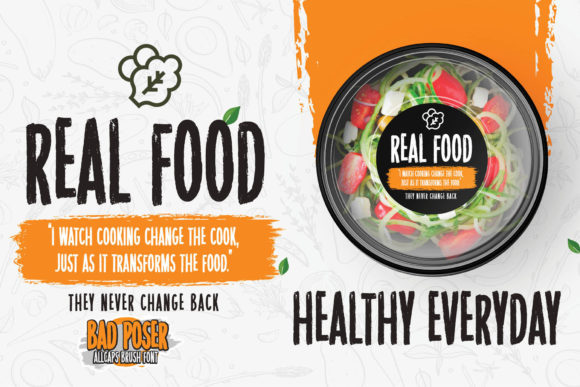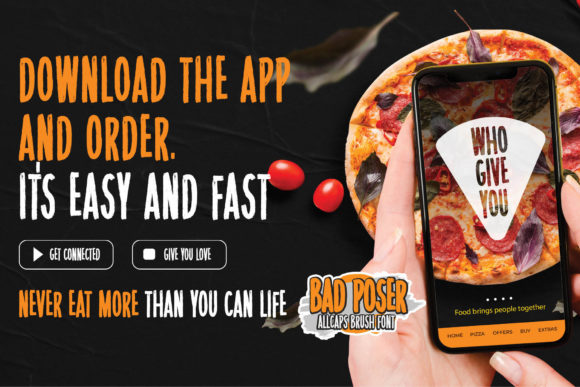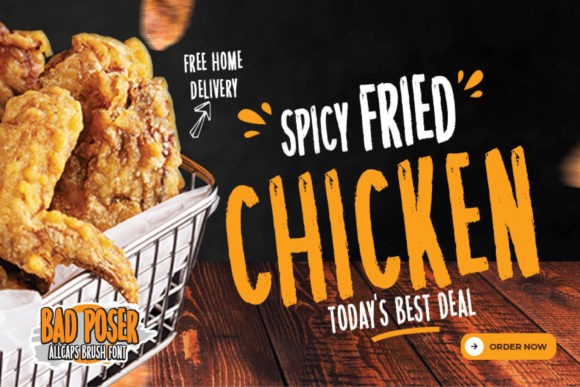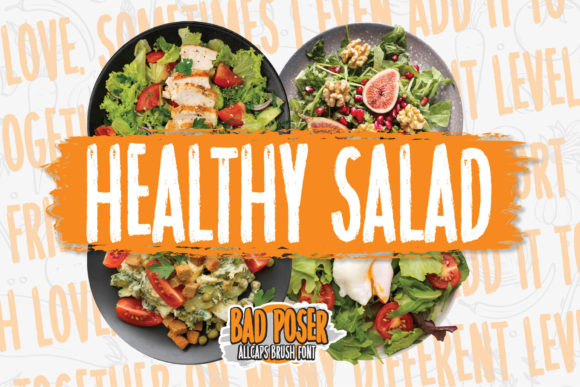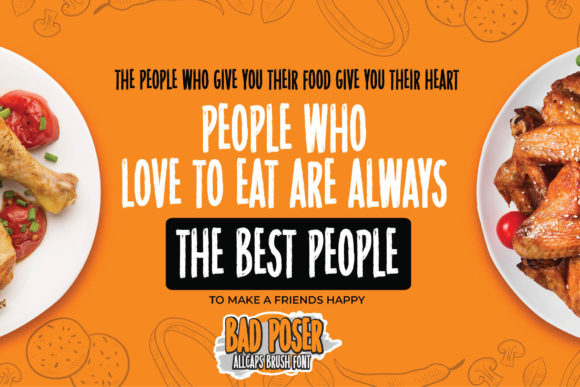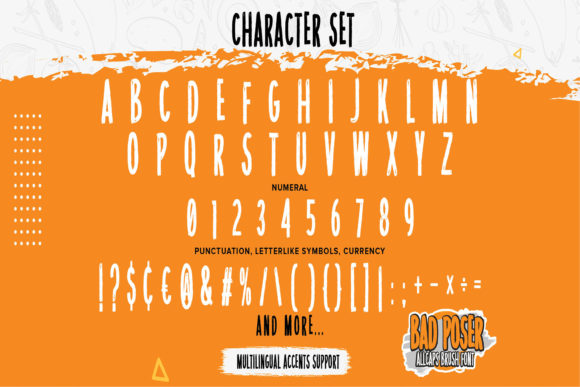
Unleash Your Inner Designer: Get Ready to Rock with the Bad Poser Font
Have you ever stared at a blank canvas, searching for the perfect font to bring your design to life? We’ve all been there. It’s that moment of creative uncertainty when you need a spark to set your imagination ablaze. For designers, finding the right font can be the difference between a mediocre design and a showstopper.
That’s where the Bad Poser Font comes in – a cool and brushed display font that embodies an urban style. This versatile font is perfect for designs that need a touch of edginess, such as t-shirts, sportswear, logos, advertisements, clothing, and more. Whether you’re a seasoned pro or a budding designer, the Bad Poser Font is a valuable addition to your toolkit, offering endless possibilities to elevate your designs and leave a lasting impression.
Bad Poser Font Key Features
- Font Style: Script, handwritten, and informal font designed to mimic the look of handwriting.
- Unique Characteristics: The font’s informal and playful nature, combined with its high level of customization options, makes it ideal for creative projects that require a personal touch.
Bad Poser Font Review
I’ve worked with my fair share of fonts, but ‘Bad Poser Font’ was an interesting experience. ✨ The font’s unique, quirky design is sure to grab attention. The bold, graffiti-inspired letters are perfect for adding a touch of edginess to your design projects.
The font also comes with a range of weights, from light to bold, which is great for achieving the right balance of legibility and visual impact. ✨ The font’s versatility makes it suitable for a variety of applications, from posters to social media graphics.
However, there are some limitations to consider. ⚠️ The font’s rough, hand-drawn texture may not be ideal for projects that require a more professional, polished look. Additionally, the font’s character set is limited, which may cause issues if you need to use it for extended blocks of text.
Overall, I’d say ‘Bad Poser Font’ is a great choice for designers looking to add a bit of personality to their projects. Just be aware of its limitations and use it in contexts where its unique design can shine.
Pros:
- Unique, eye-catching design
- Range of weights for flexibility
- Suitable for a variety of applications
Cons:
- Limited character set
- Rough texture may not be suitable for all projects
The Bad Poser Font is perfect for creating humorous or ironic designs, such as memes or social media posts.
It’s also great for adding a touch of whimsy to your branding or marketing materials.
Remember to use the font in moderation, as it can be quite bold and eye-catching.